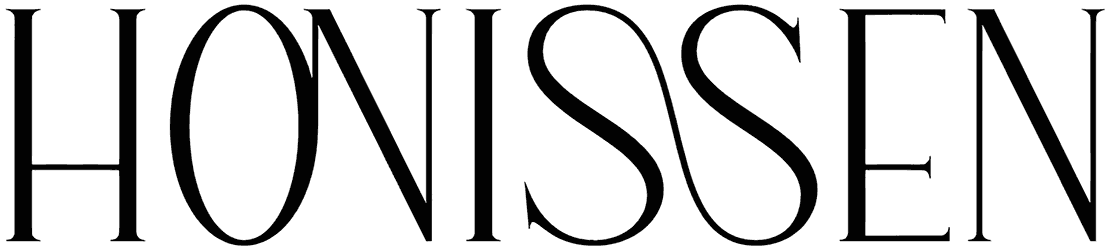
Honissen Font
With original and impressive words, you can draw a lot of attention to your design, and this option can do that. Honissen font is a unique serif font that perfectly reflects a chic and classic vibe. Even without lowercas…
With original and impressive words, you can draw a lot of attention to your design, and this option can do that. Honissen font is a unique serif font that perfectly reflects a chic and classic vibe. Even without lowercase letters support, Honissen will be a nice showcase for lots of layouts, namely business cards, branding, packaging, and more of the same.